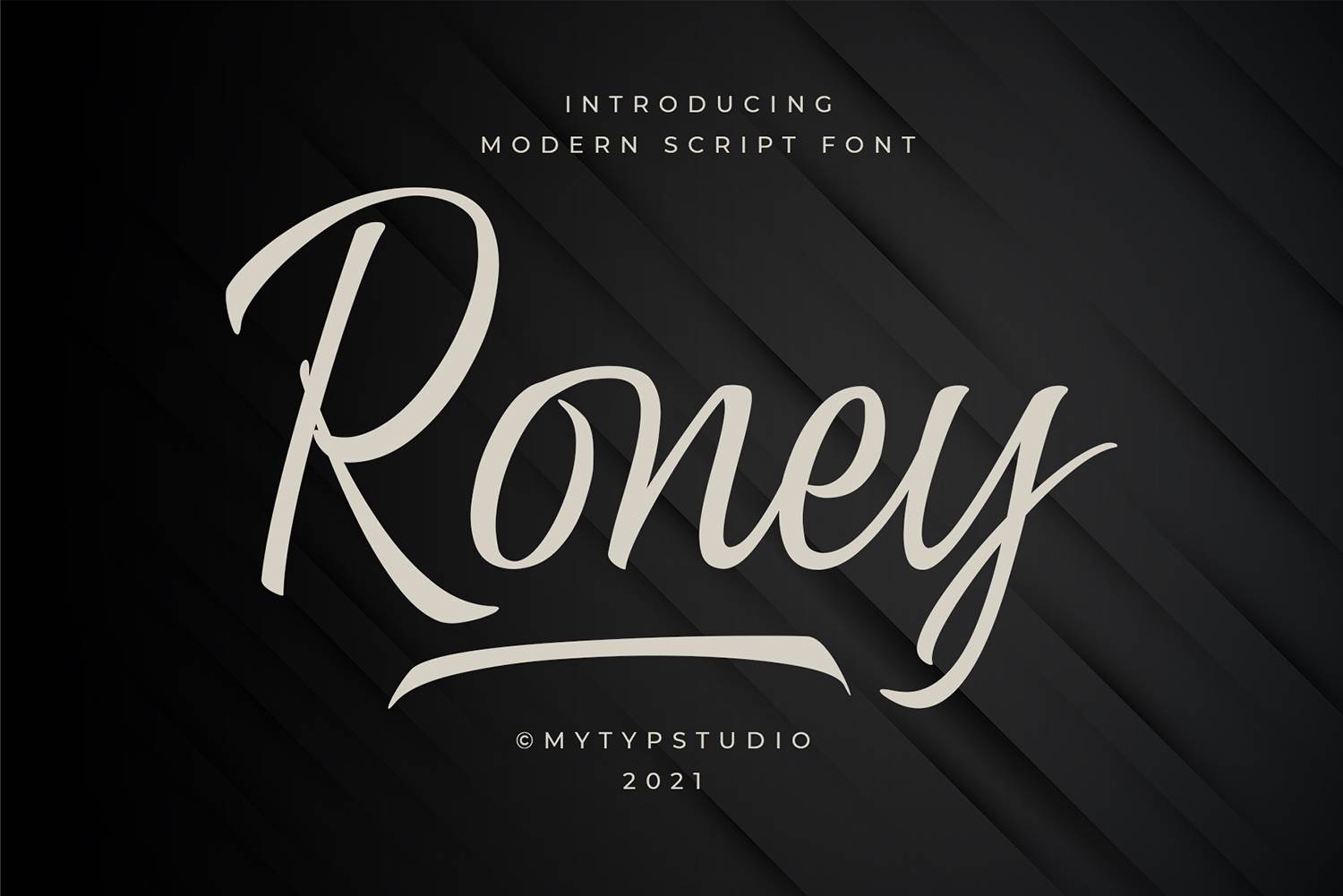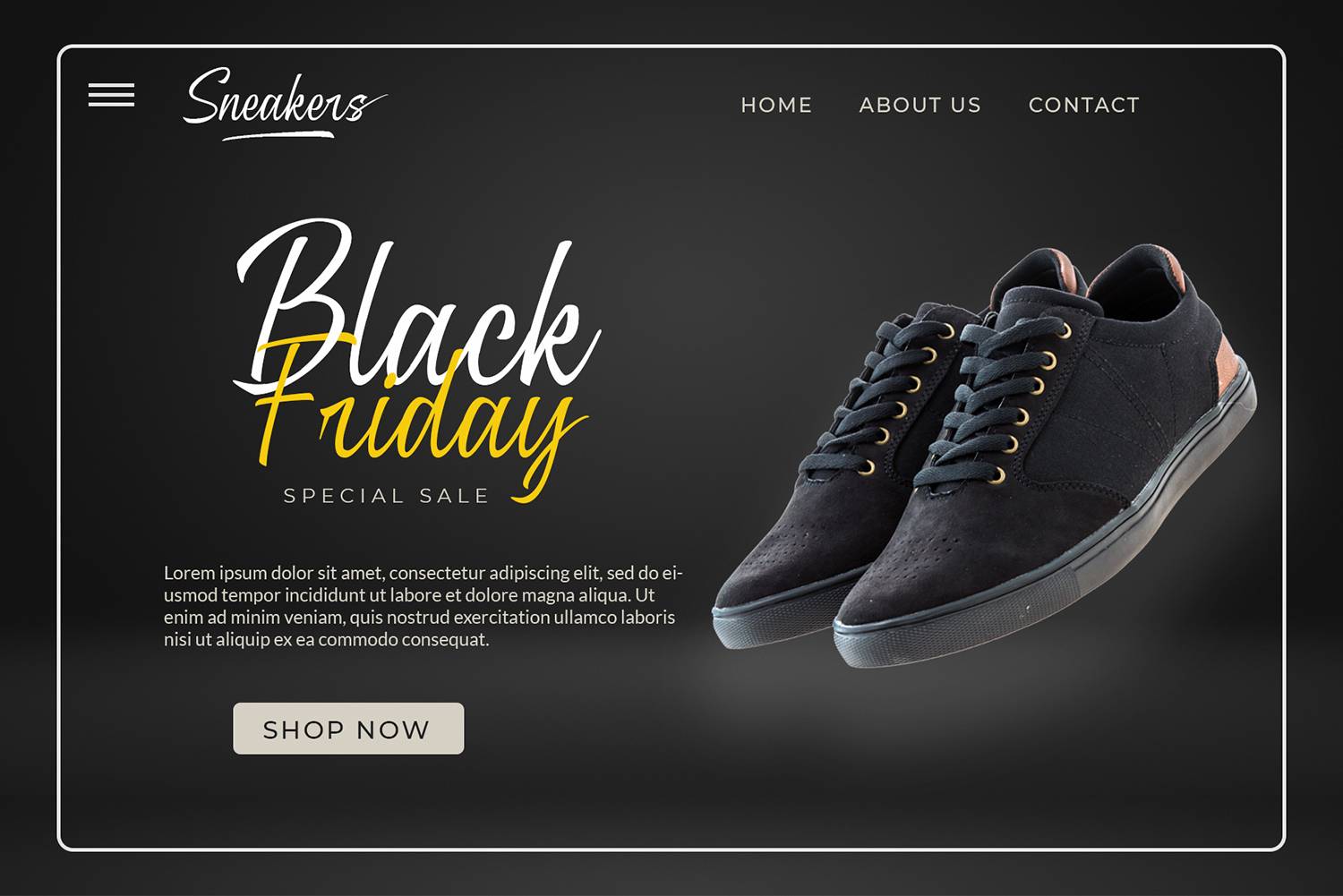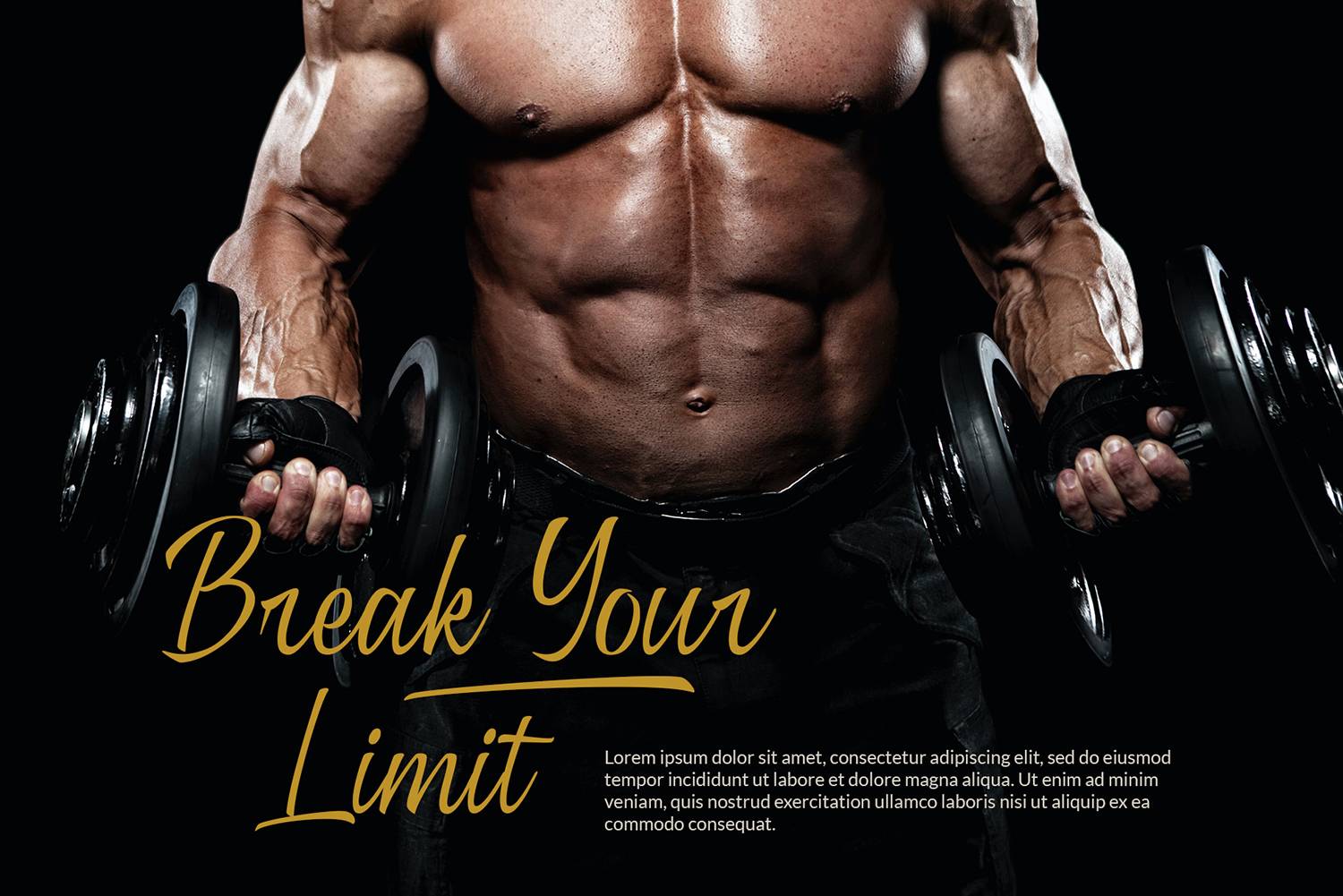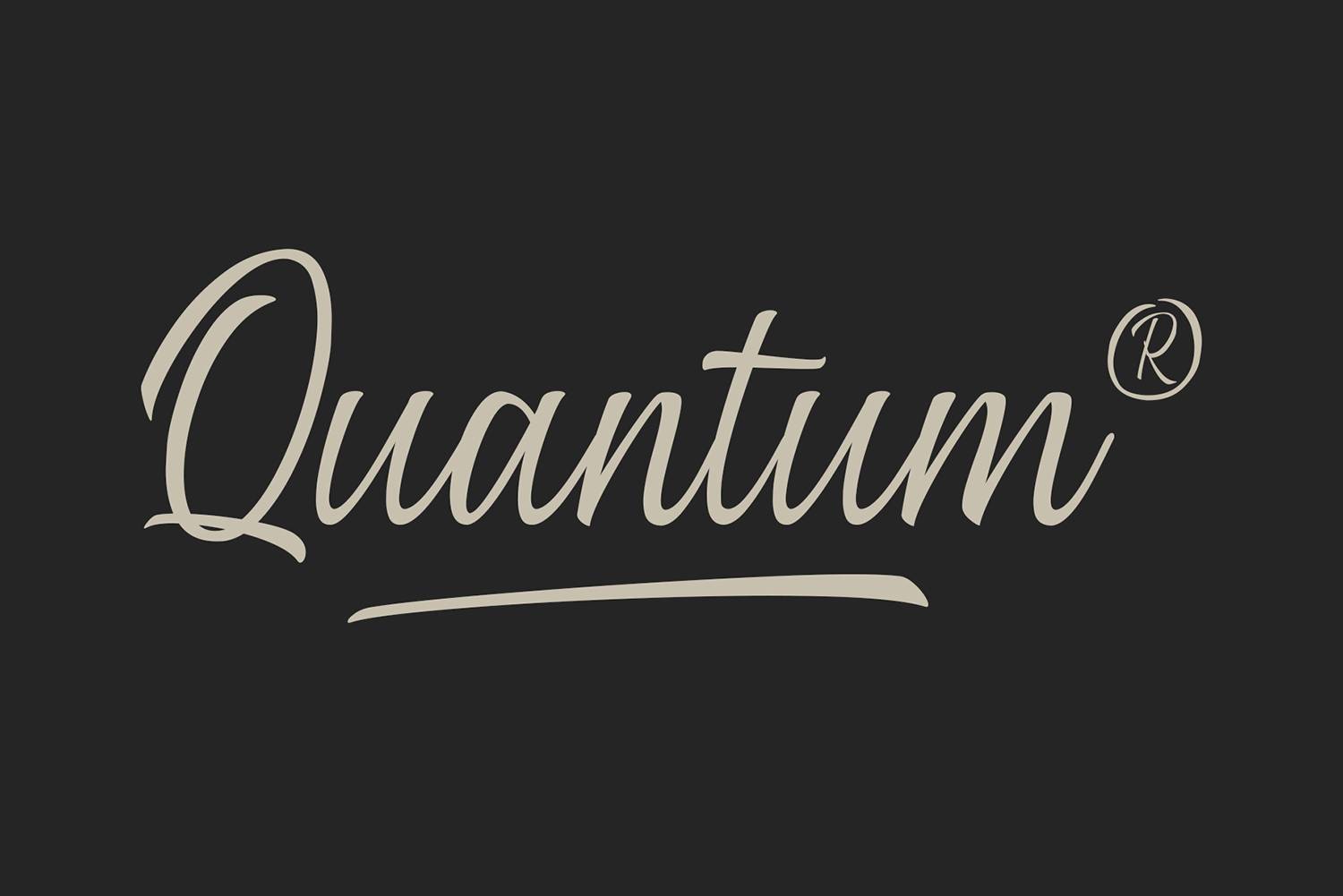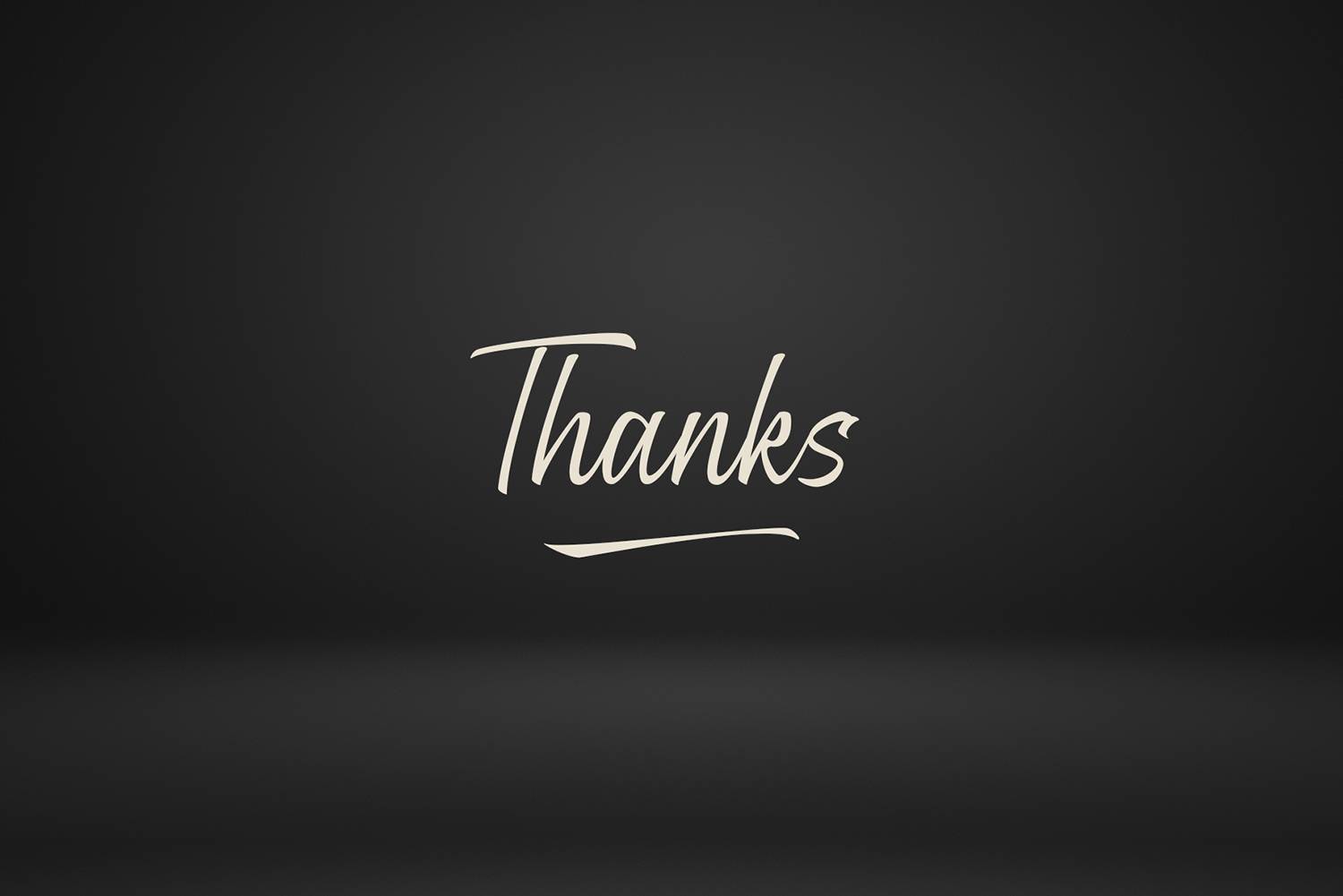
Roney Font is a sleek and elegant script typeface that features a light weight with slender, flowing letterforms, giving it a graceful and modern look. Its tall x-height and slightly varied stroke width create a sense of sophistication, making it ideal for stylish invitations, branding, and editorial work where a refined handwritten touch is desired. With its unique blend of casual charm and polished design, Roney works beautifully for projects needing a personal yet professional feel.
Roney Font
About Roney Font